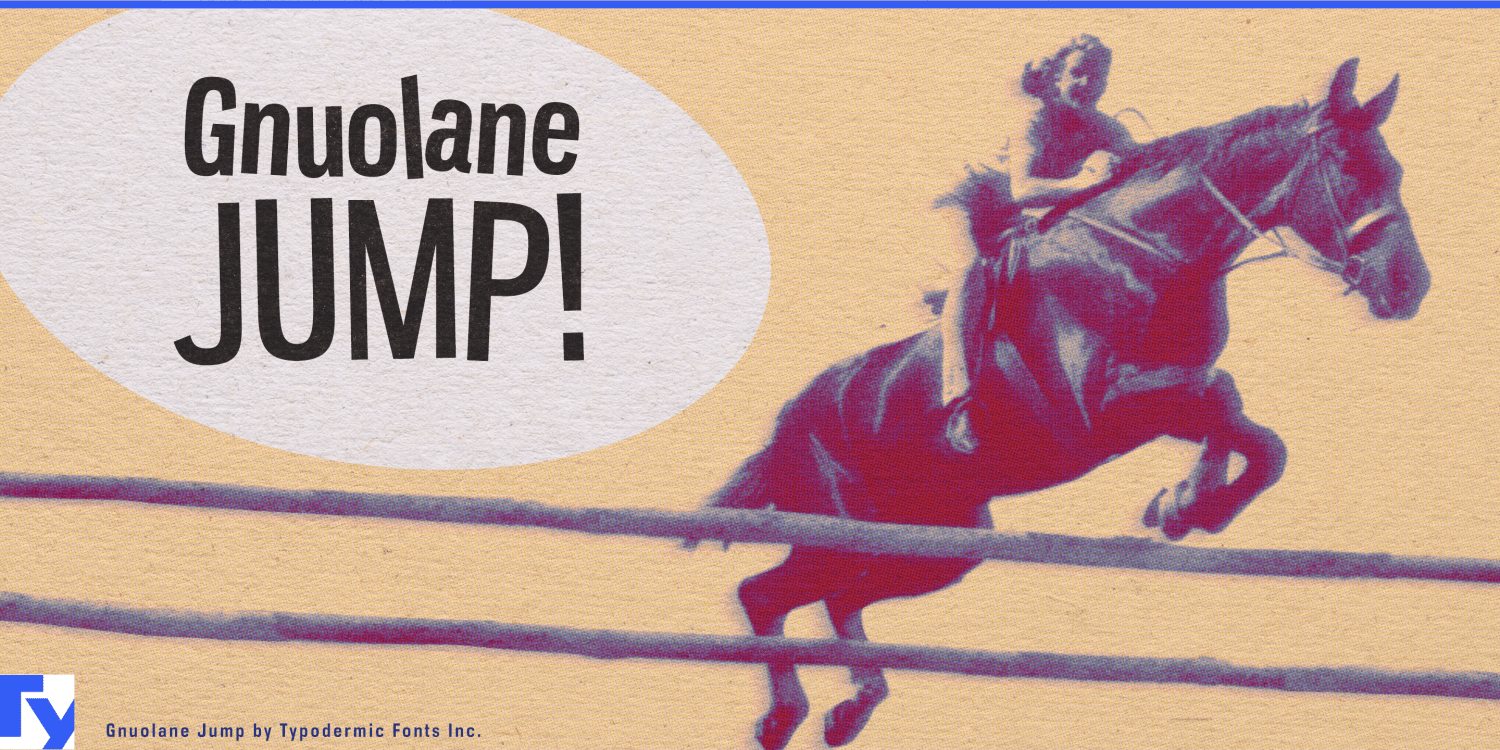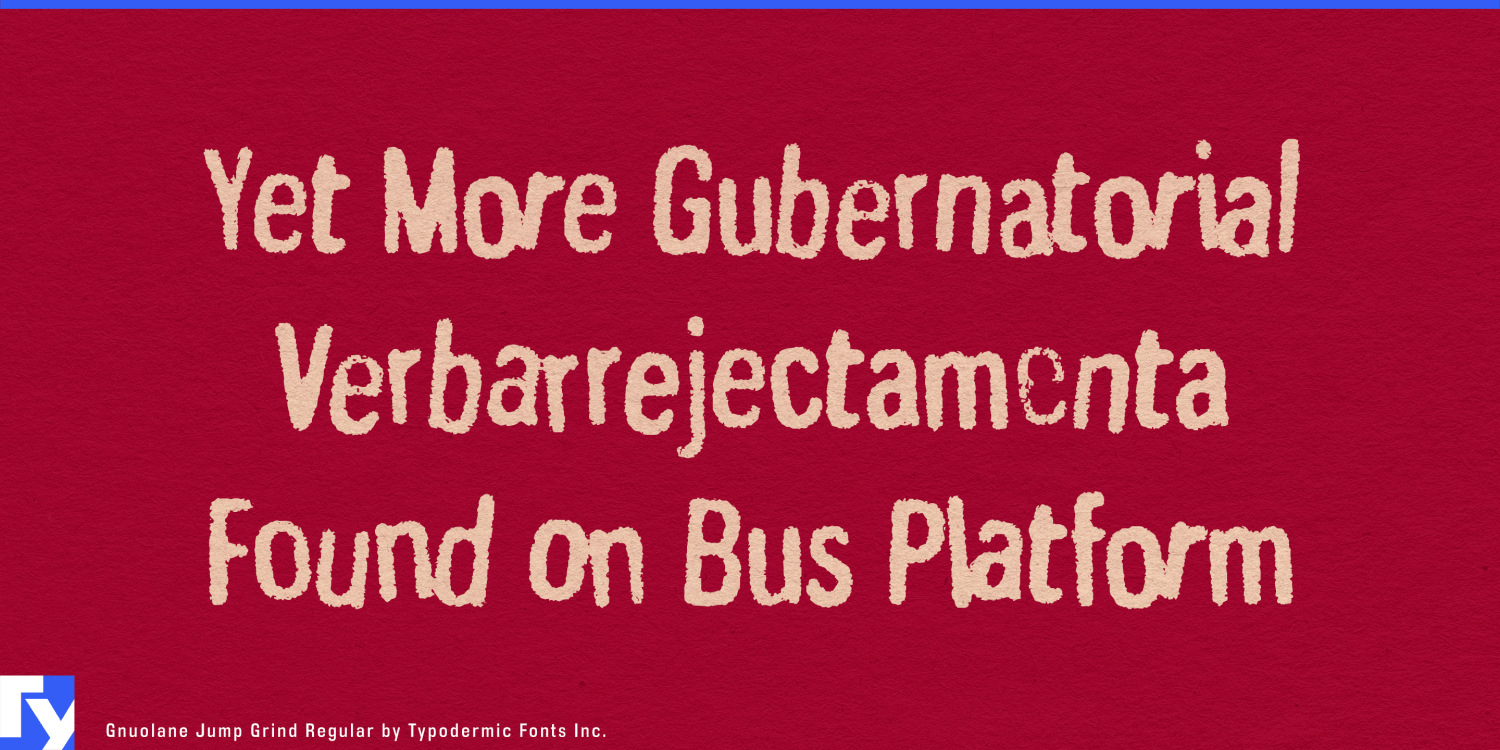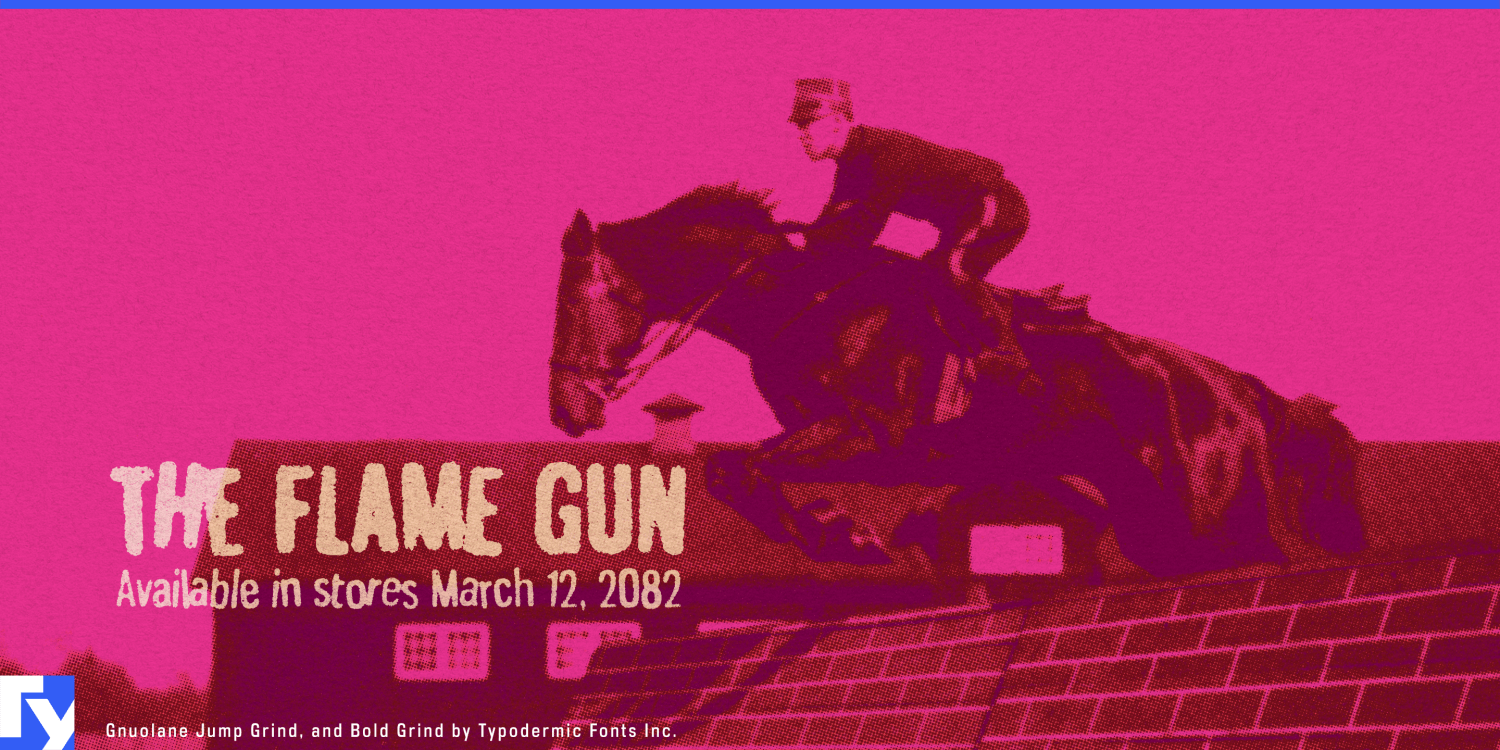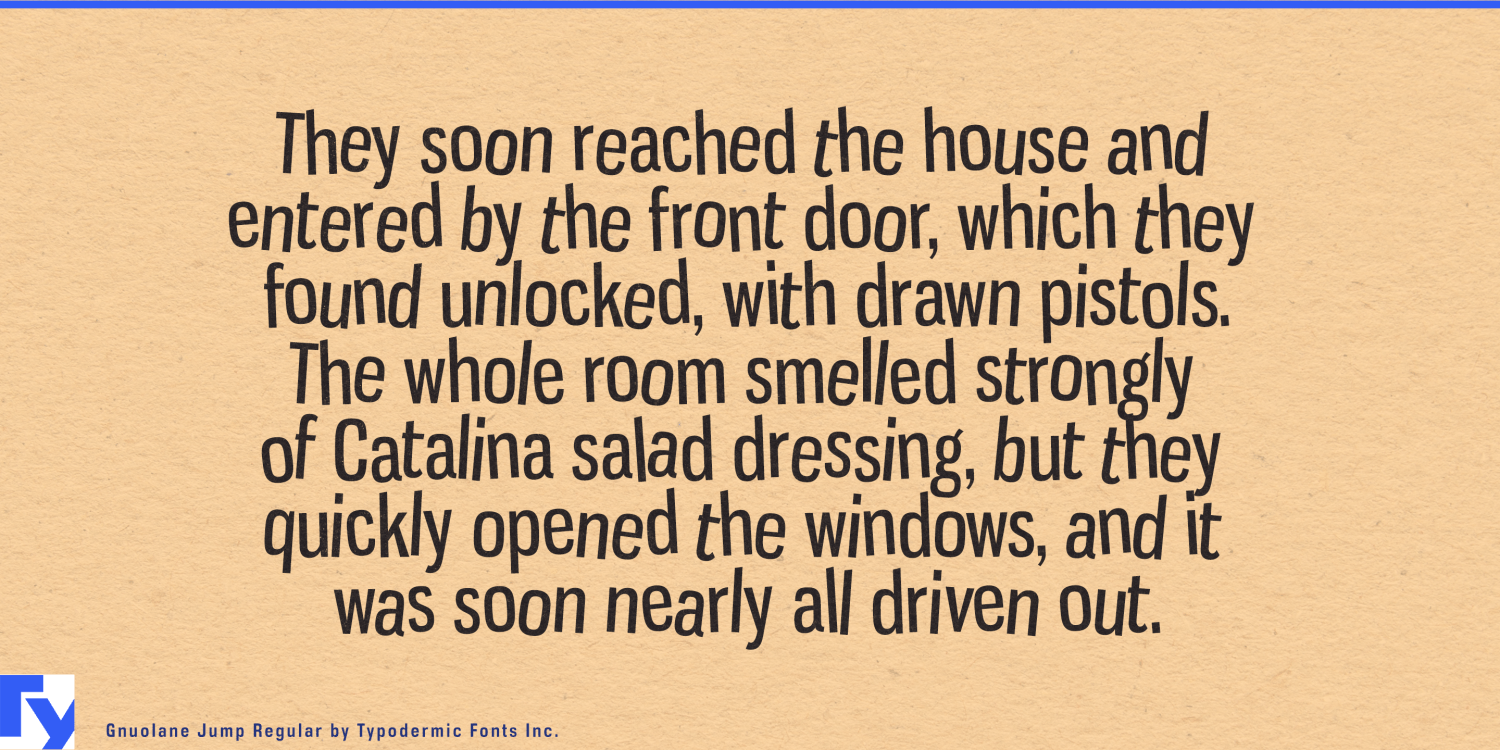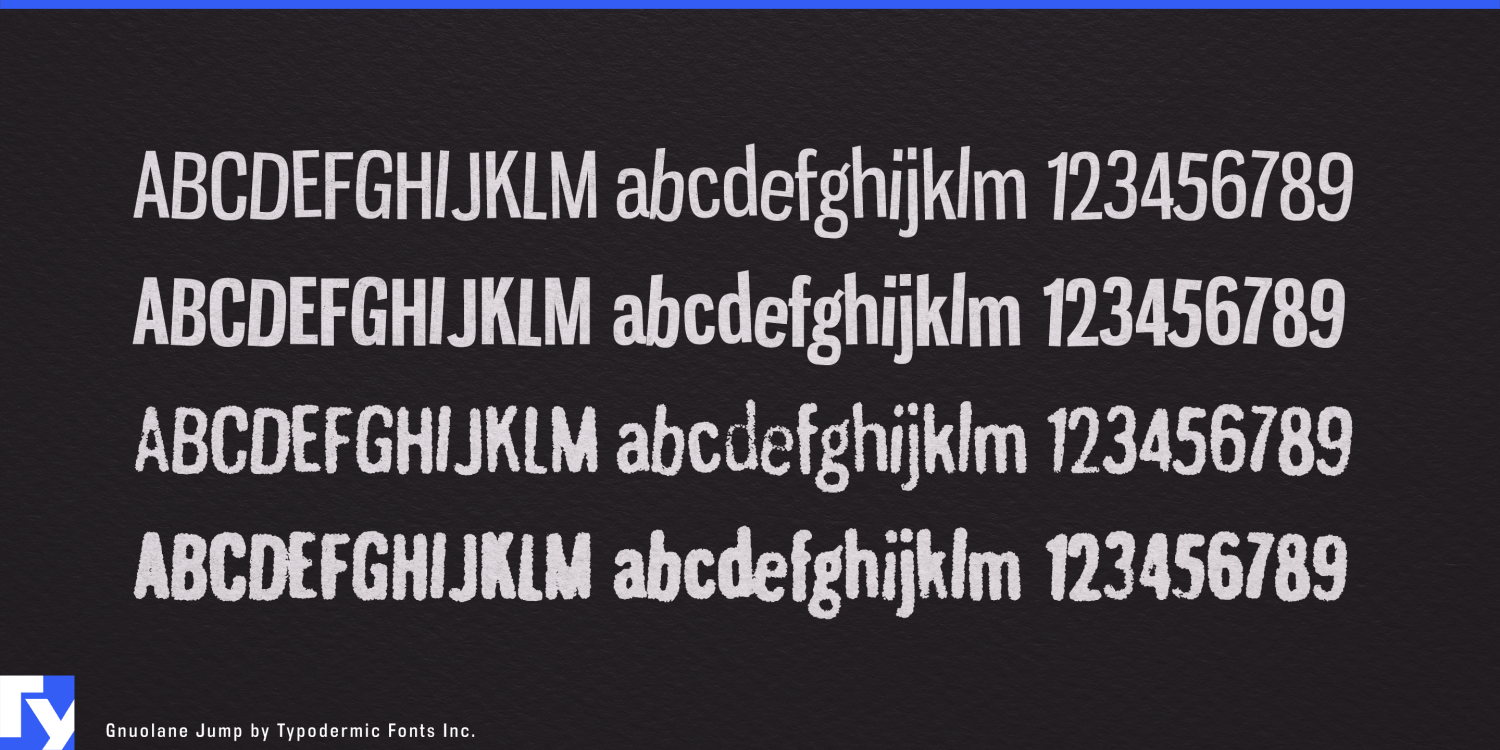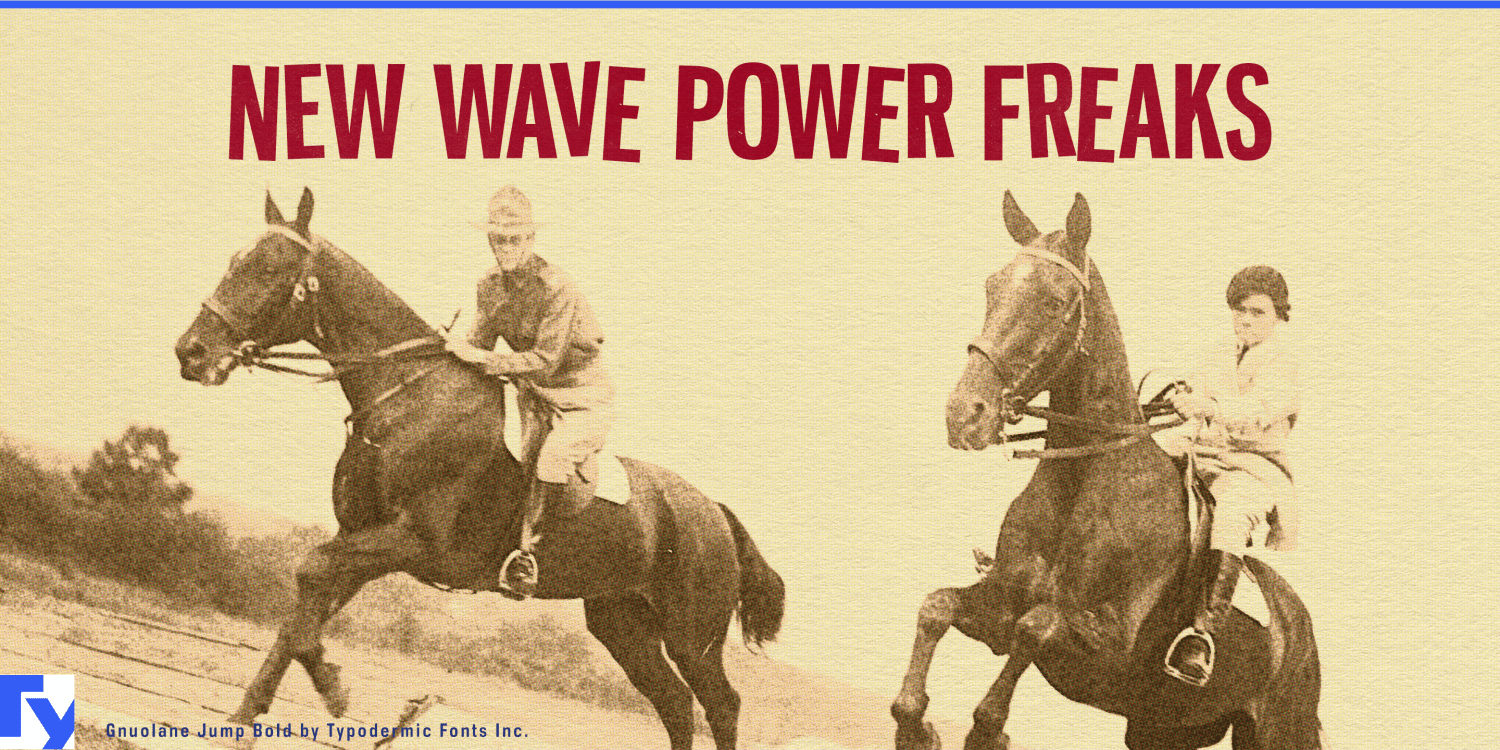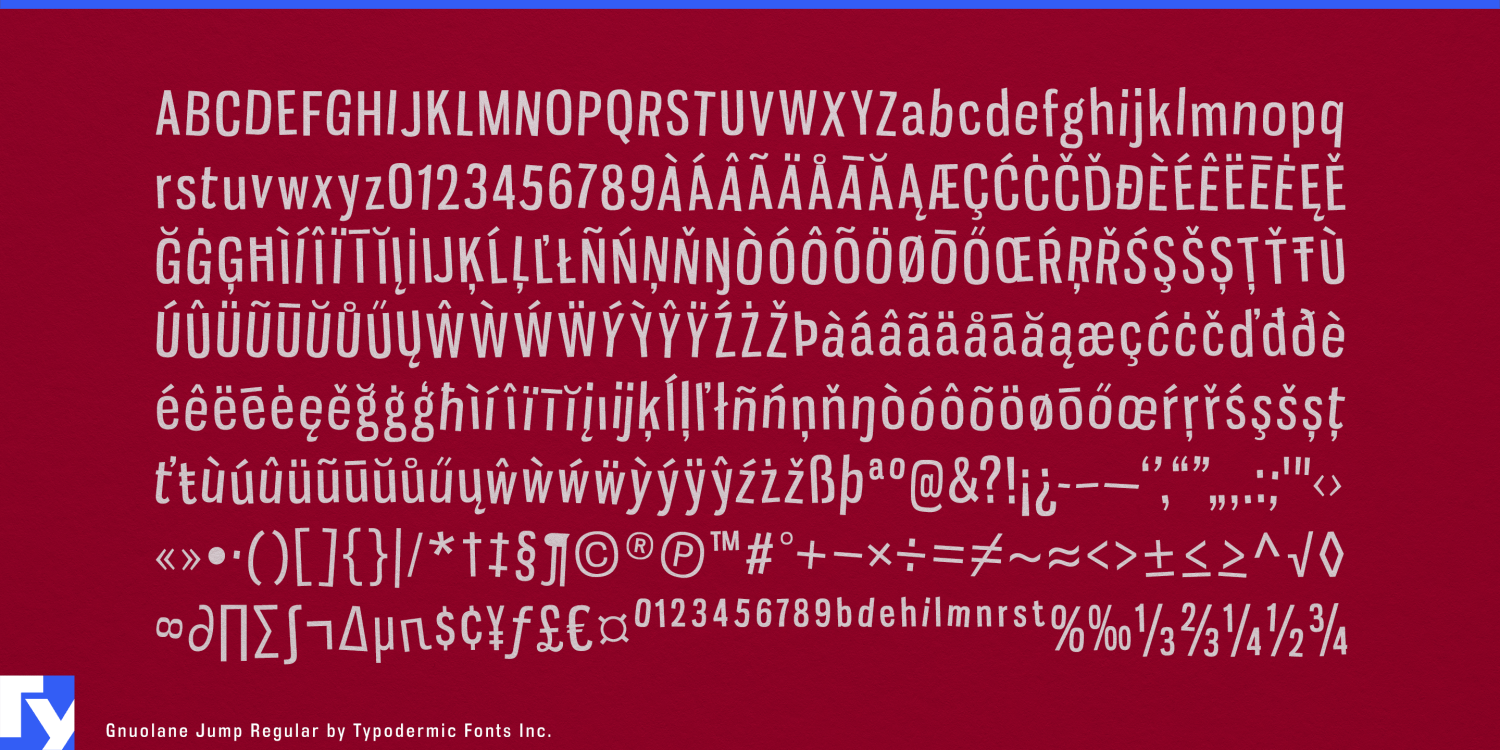
Gnuolane Jump
Custom bouncy lettering is easy when there is only one title. The trouble starts when the lineup changes, the show changes or the next package needs a different flavor name. Manually raising, lowering and rearranging letters can give one piece wonderful rhythm, but maintaining that treatment across a whole campaign quickly becomes tedious. Gnuolane Jump builds the irregularity into the typesetting.
The design grew from condensed lettering seen on 1950s and 1960s jazz and rock record covers, where letters often shifted above and below the baseline instead of lining up obediently. Common letter combinations automatically introduce raised and lowered variants, creating changing vertical relationships as different words are typed. The condensed Gnuolane structure underneath keeps the result organized even while the baseline misbehaves.
Music programming is a natural fit. Jazz festivals, concert series, contemporary music venues, record labels and vinyl-reissue programs constantly replace one artist name with another while maintaining a recognizable identity. Gnuolane Jump can carry festival titles, performer names, stage headings, concert announcements and promotional cards without requiring every new name to be individually rebuilt.
Comedy festivals, repertory theaters, dance programs, variety shows and multidisciplinary arts centers present the same production problem. Production names, performer lists and promotional headlines can share a consistent irregular rhythm across a changing season.
Consumer packaging offers another reason to turn irregular lettering into a system. Snack foods, sauces, specialty coffee, frozen treats and pantry brands often build ranges around changing flavor or variety names. Gnuolane Jump lets each new name acquire its own arrangement while retaining the same underlying proportions.
The family includes clean Regular and Bold styles along with Grind counterparts that apply a rougher printed surface to the same bouncing construction. That allows one identity to move between crisp display typography and more battered promotional material without abandoning its rhythm.
Gnuolane Jump belongs to the broader Gnuolane group. The original Gnuolane keeps the superelliptical structure clean for engineered products, electrification, robotics and automation; Gnuolane Stencil introduces fine stencil bridges for marking, transport and assembly themes. Gnuolane Jump is the branch for music, performing arts, entertainment and consumer systems where irregular lettering needs to keep working after the first carefully arranged title.